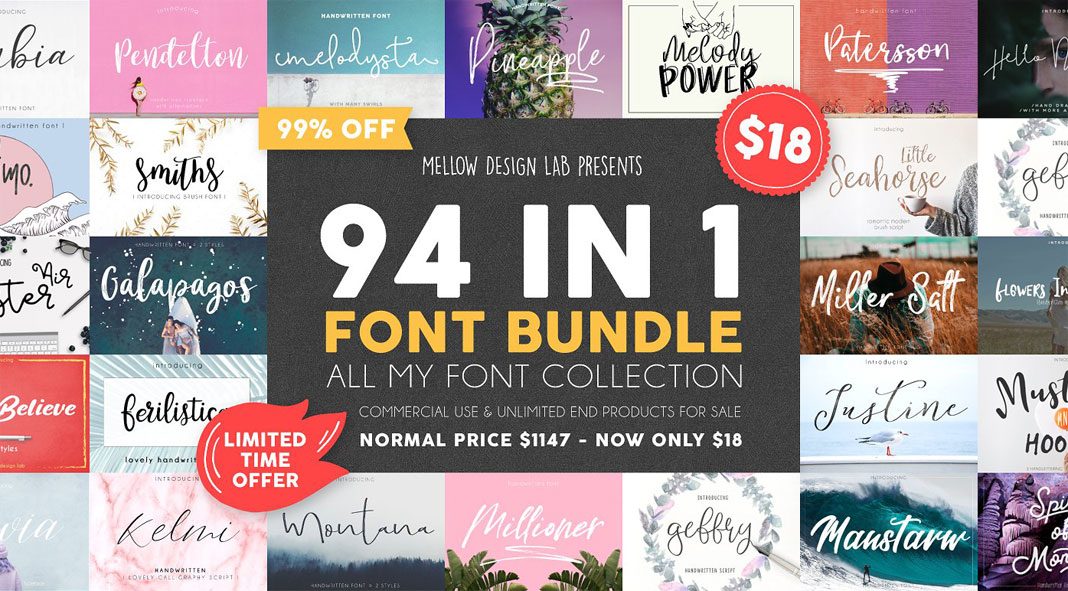
Check out this amazing collection of 94 professional fonts included in one big bundle!
Kelly Reed of Mellow Design Lab has put together this amazing bundle containing all of her beautiful type designs. Equipped with 94 eye catching fonts, this set would actually cost $1147, but you can get them all for only $18! Please note, this is a limited time offer. The bundle includes a varied range of handwritten styles. You can use these typefaces for both personal and commissioned projects including logos, postcards, e-books, web publications, brand materials, business cards, quotes, posters, and much more. If you want to purchase this amazing collection, just click on the following link.